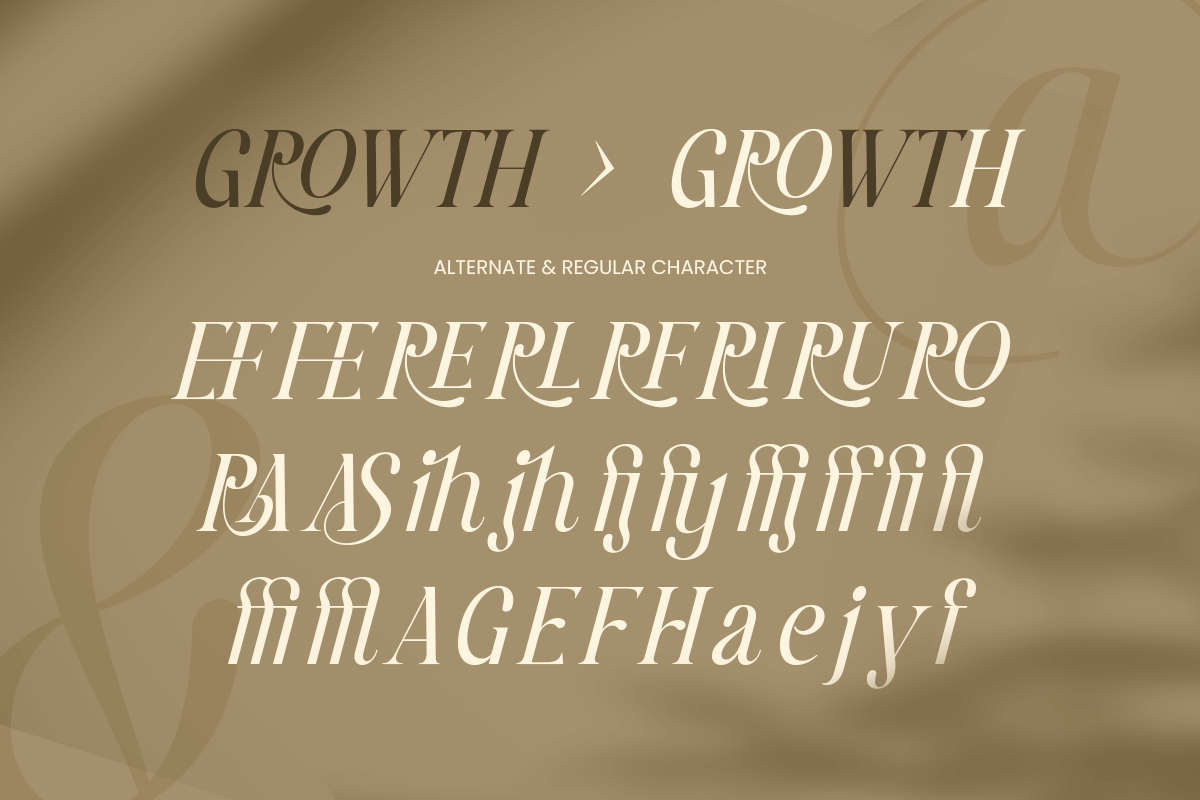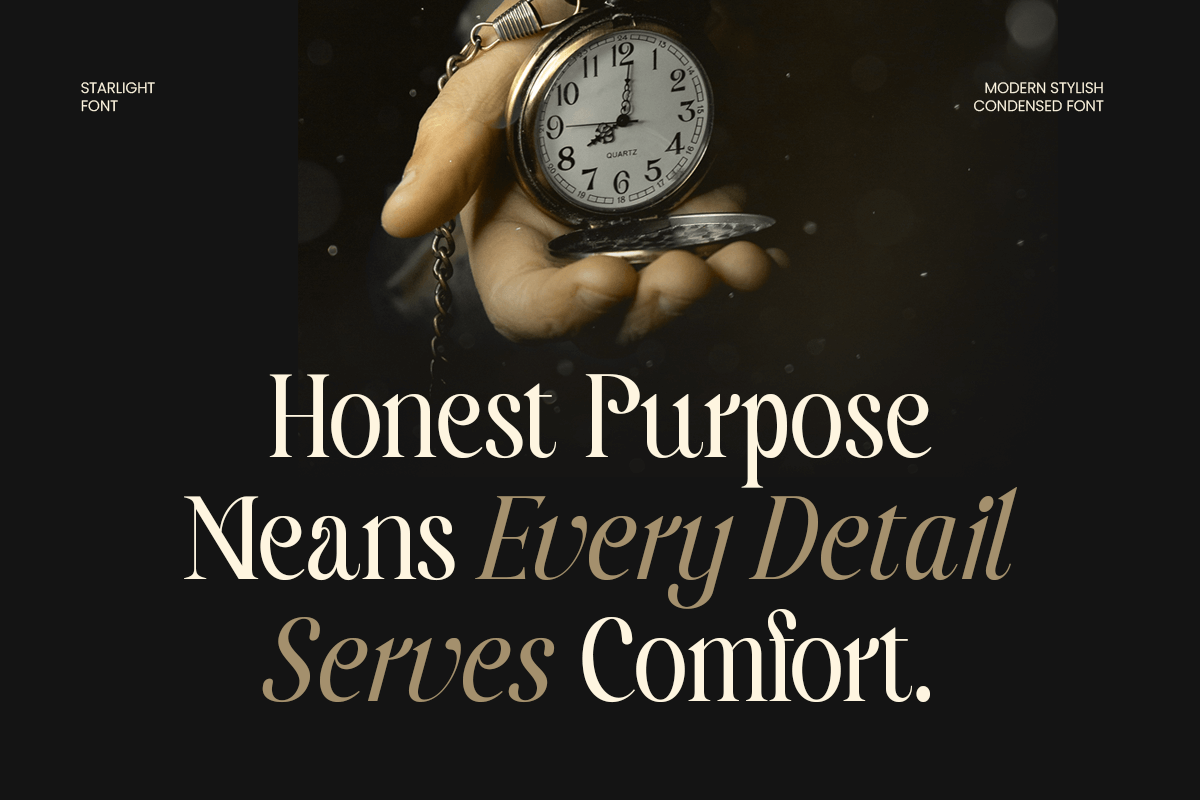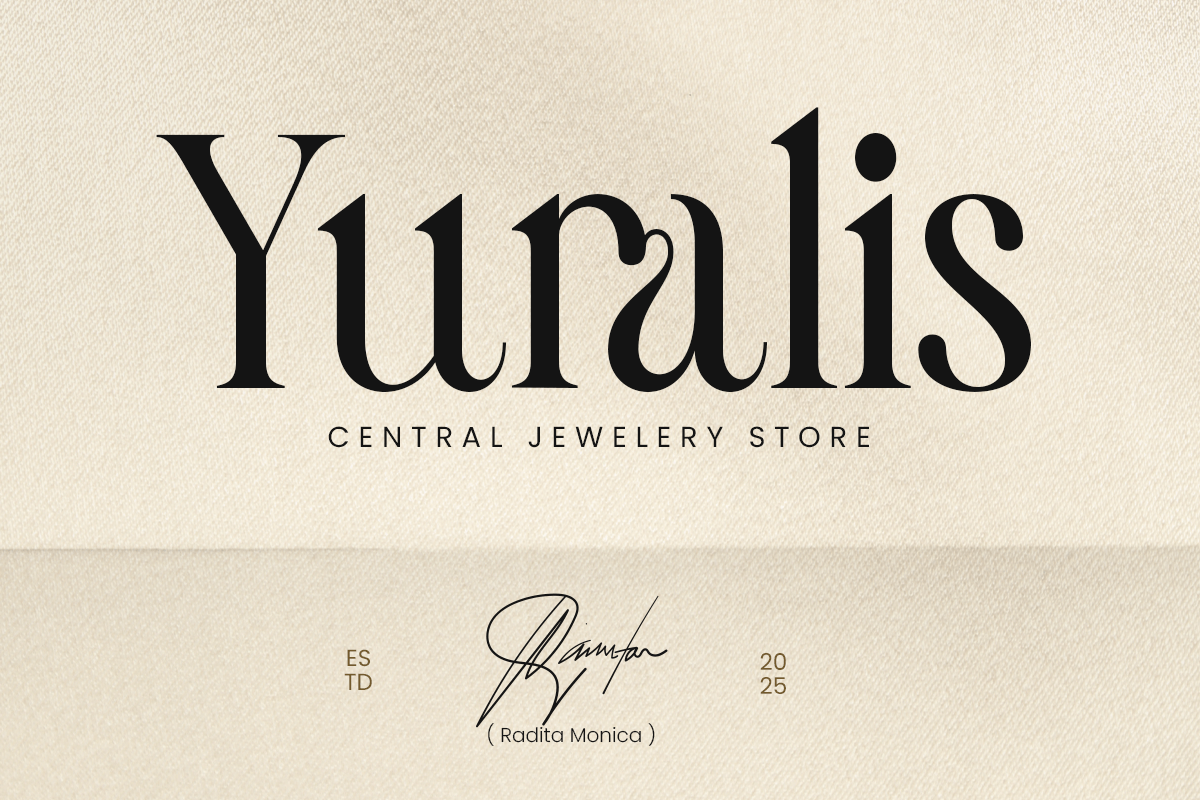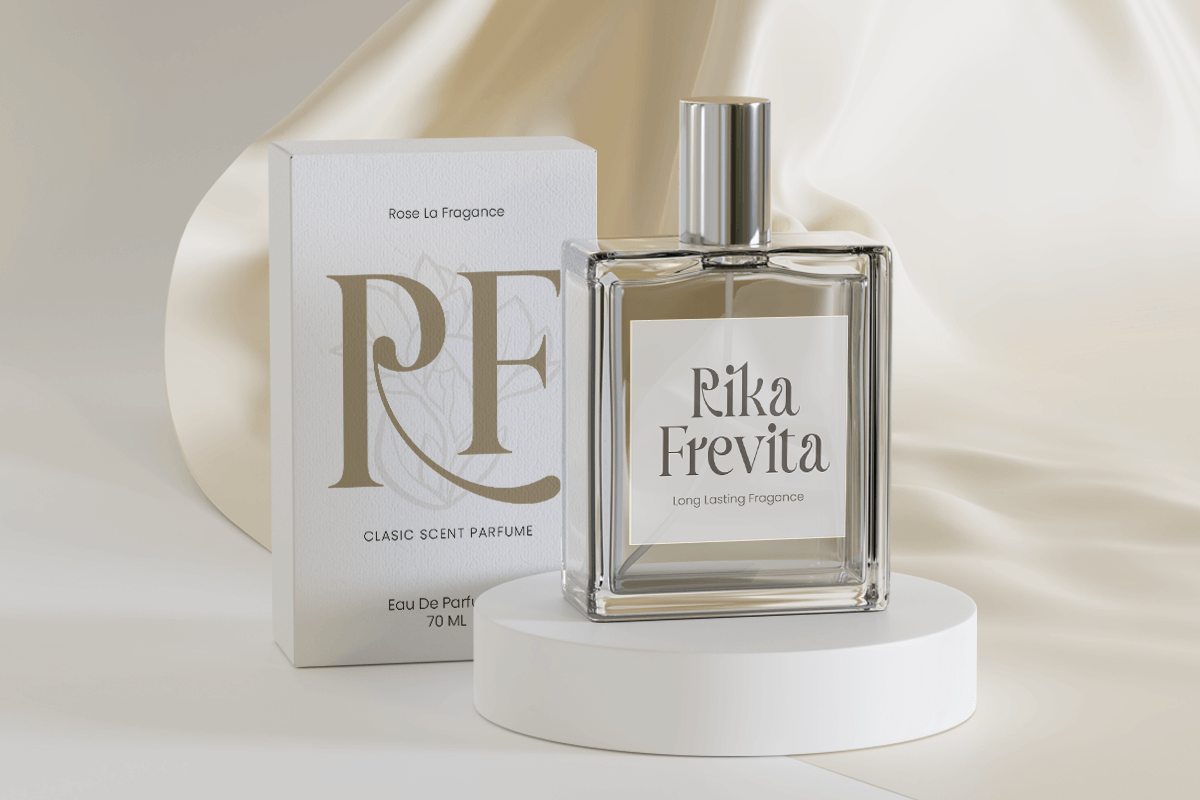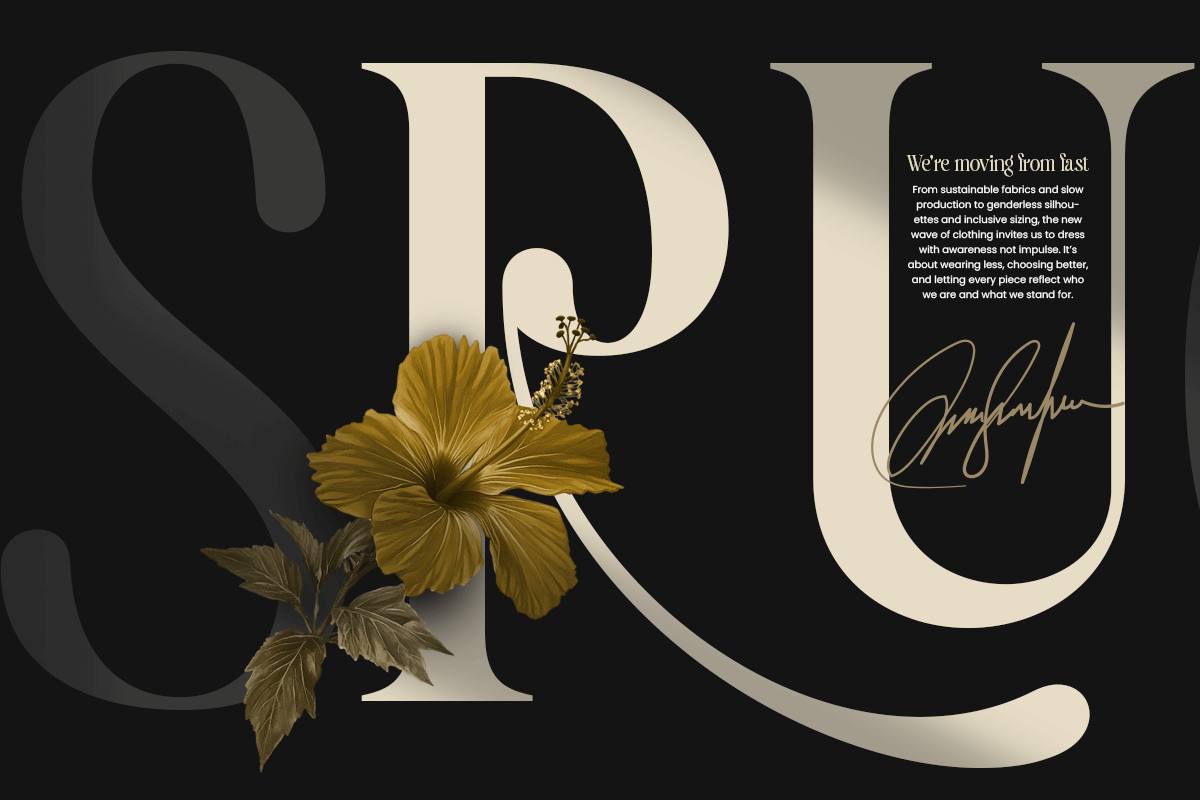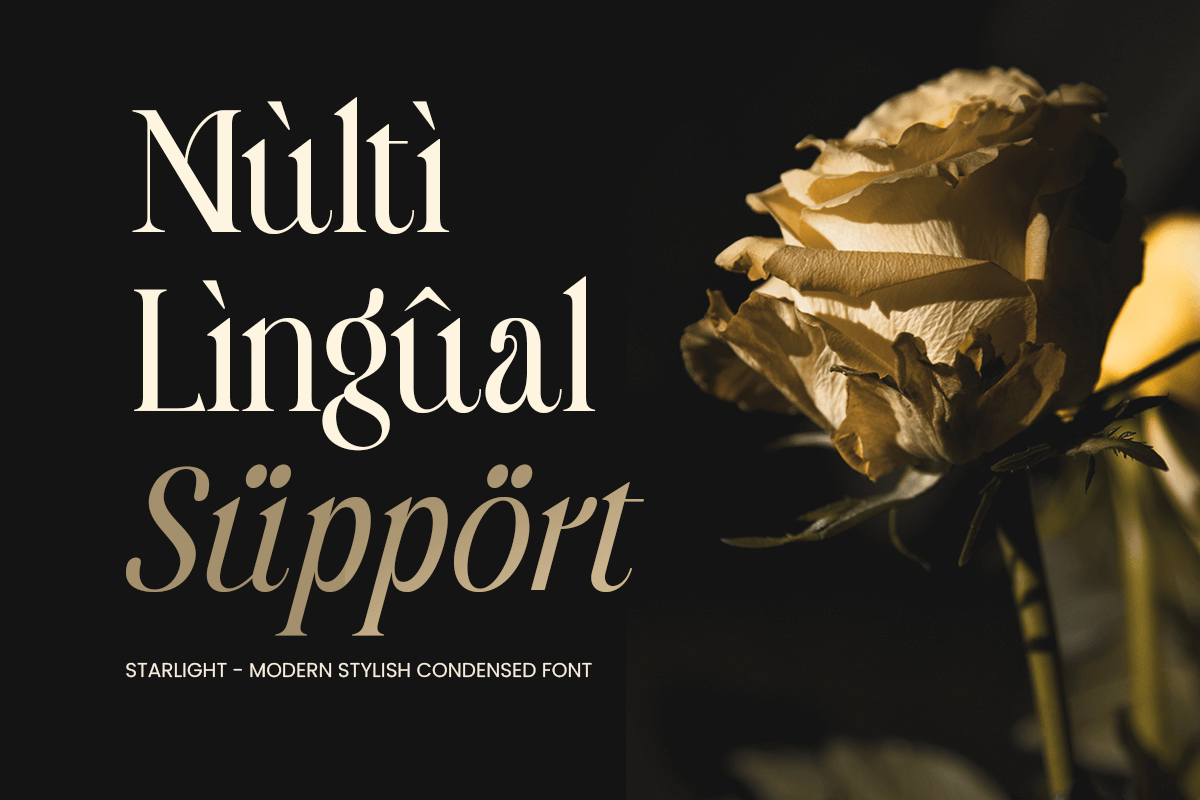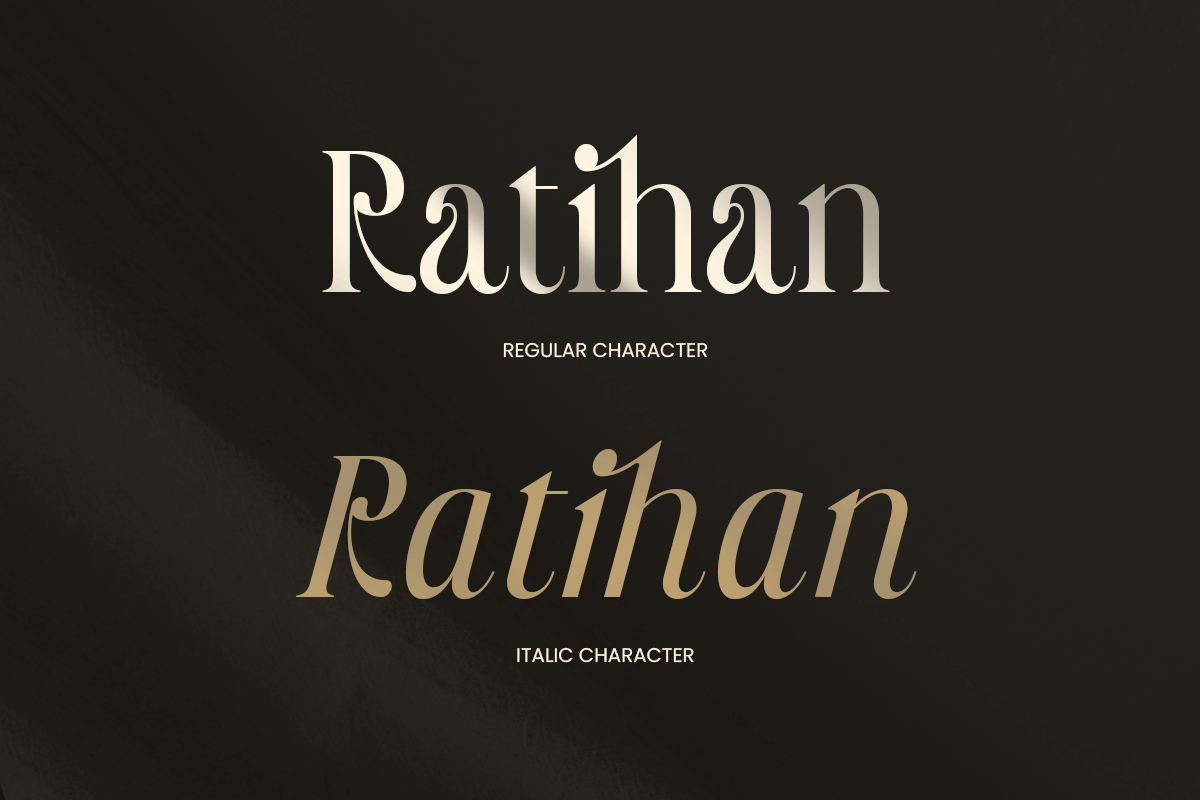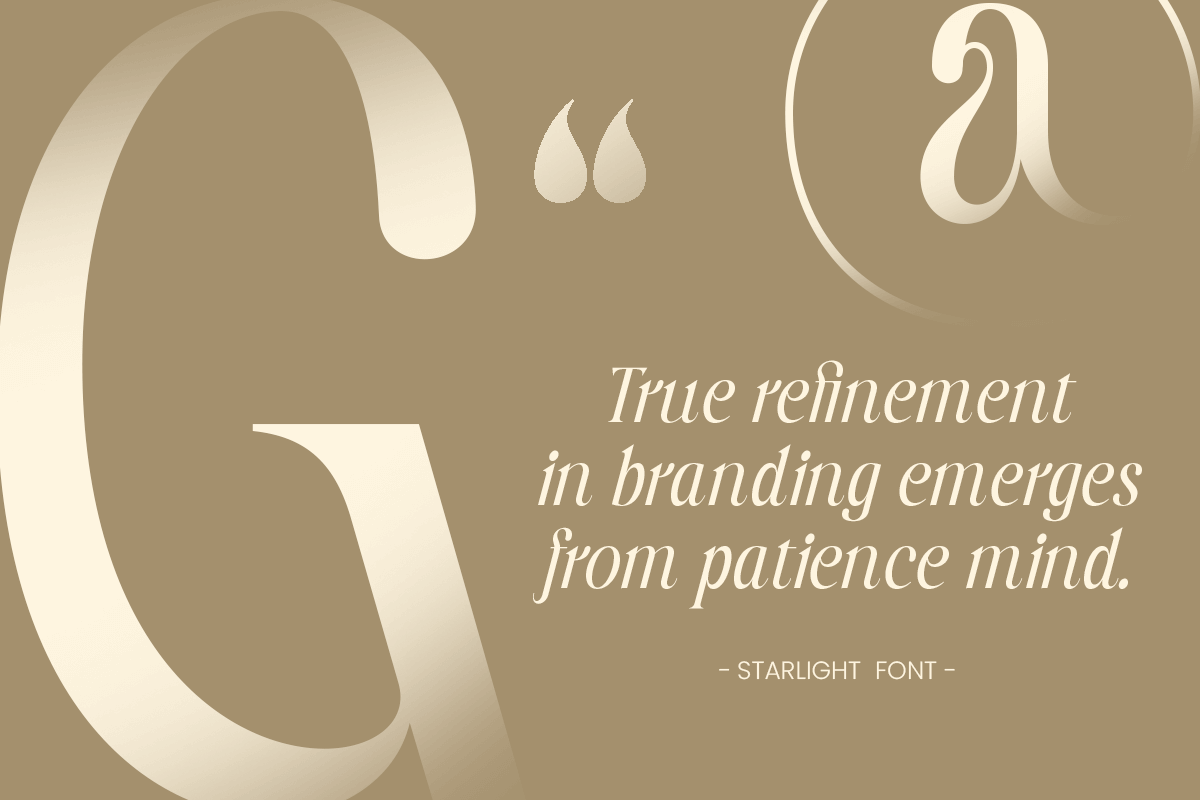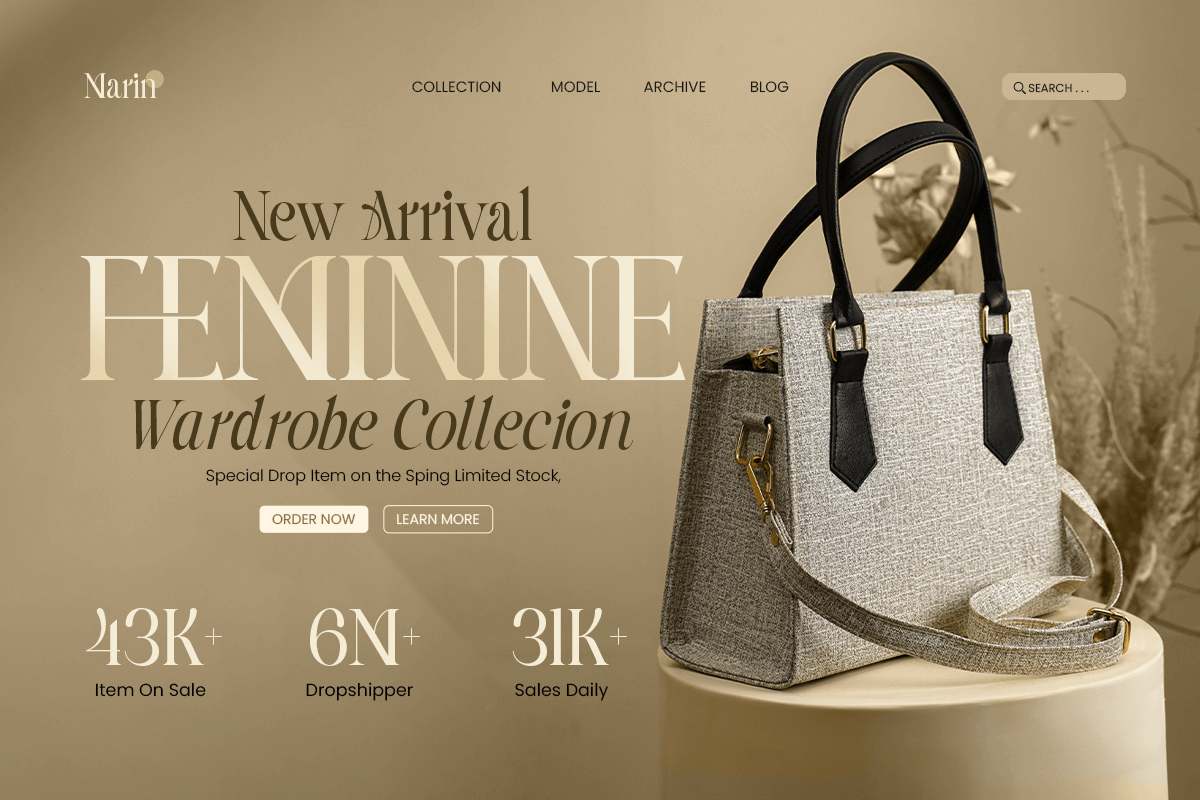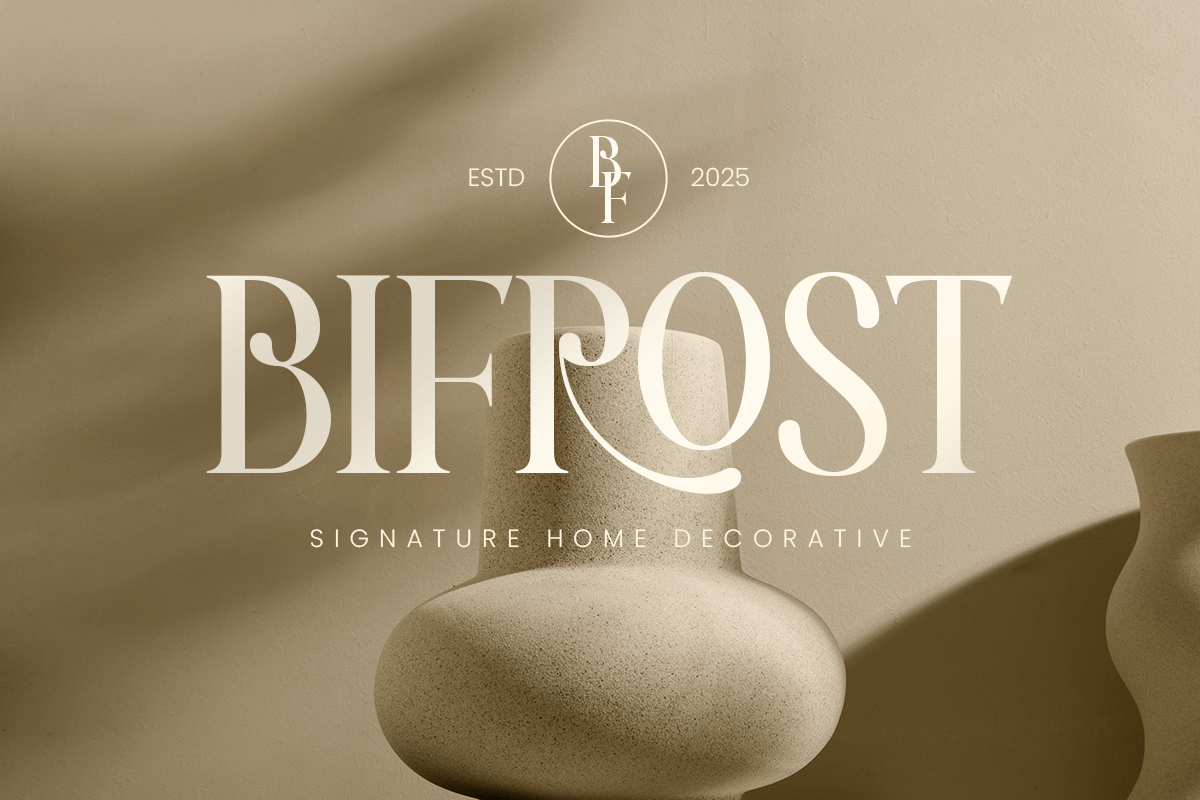
Starlight – Stylish Editorial Font
Starlight is a stylish editorial font crafted to deliver a refined, modern look with high-fashion confidence. With clean structure and an elegant contemporary feel, this typeface brings a premium editorial tone that looks polished, sharp, and instantly on-trend.
Designed for modern editorial design and brand-forward typography, Starlight works beautifully across magazine covers, headlines, lookbooks, fashion campaigns, beauty branding, and premium social media layouts. Its stylish presence helps your typography stand out while staying clean and readable in both print and digital environments.
Whether you are creating a magazine title, a luxury-inspired brand identity, or a bold headline system, Starlight provides a sophisticated editorial voice that elevates every layout with modern elegance.
Inspiration Behind Starlight is inspired by contemporary magazine typography and high-end editorial aesthetics—where clarity, contrast, and style define the visual mood. Built to support premium branding and editorial layouts, it performs seamlessly across headlines, cover titles, logos, packaging, campaign visuals, and social media—perfect for fashion, beauty, lifestyle, and modern creative brands.
Starlight Font Features
Stylish editorial letterforms with modern premium character
Optimized for headlines, cover titles, and brand statements
Strong readability for display typography and layouts
Uppercase, lowercase, numerals, and punctuation included
OpenType features for polished professional typesetting
Magazine covers, editorials, and lookbook design
Fashion, beauty, and lifestyle branding
Premium logos, packaging, and campaign typography
Website headers, banners, and social media creatives
Posters, headlines, and modern promotional layouts
Multilingual Support Afrikaans, Albanian, Asu, Basque, Bemba, Bena, Breton, Chiga, Cornish, Dutch, English, Estonian, Filipino, Finnish, Friulian, Galician, German, Gusii, Indonesian, Irish, Italian, Kabuverdianu, Kalenjin, Kinyarwanda, Luo, Luxembourgish, Luyia, Machame, Makhuwa-Meetto, Makonde, Malagasy, Manx, Morisyen, North Ndebele, Nyankole, Oromo, Portuguese, Quechua, Romansh, Rombo, Rundi, Rwa, Samburu, Sango, Sangu, Scottish Gaelic, Sena, Shambala, Shona, Soga, Somali, Spanish, Swahili, Swedish, Swiss, and more.